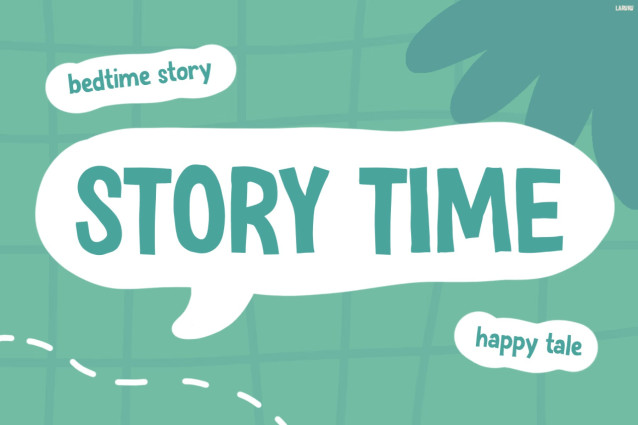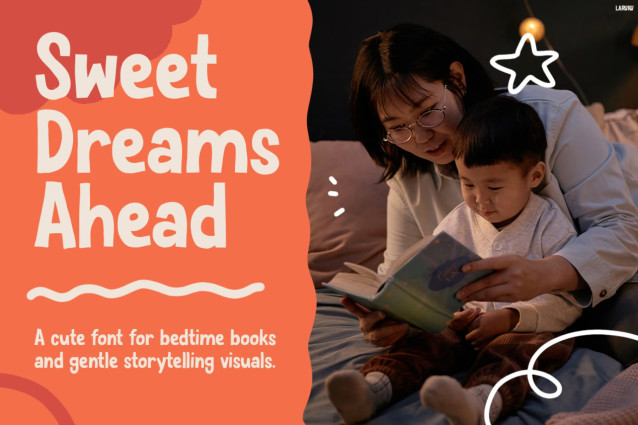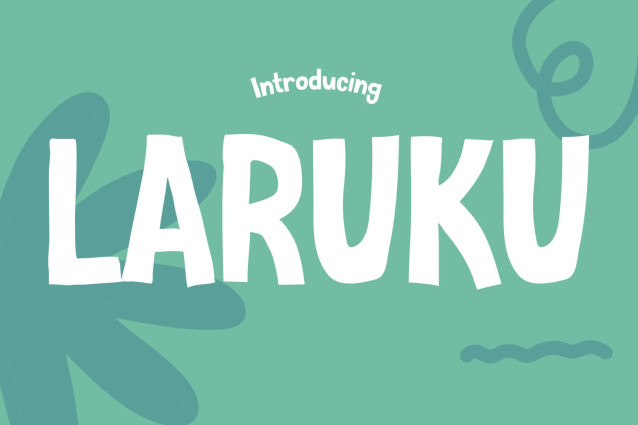
Laruku Font
Kids Font Laruku instantly captures attention with its cheerful, hand-drawn character and soft, rounded shapes that radiate warmth and friendliness. Designed with a playful spirit, this font brings a natural, childlike charm that feels both expressive and easy to read. Its slightly irregular strokes give it a lively personality, making every word feel dynamic and full of imagination.
Whether used in bold headlines or gentle storytelling layouts, Laruku delivers a delightful visual rhythm that enhances emotional connection. Moreover, its versatility allows it to adapt seamlessly across various creative needs, from fun branding to educational materials.